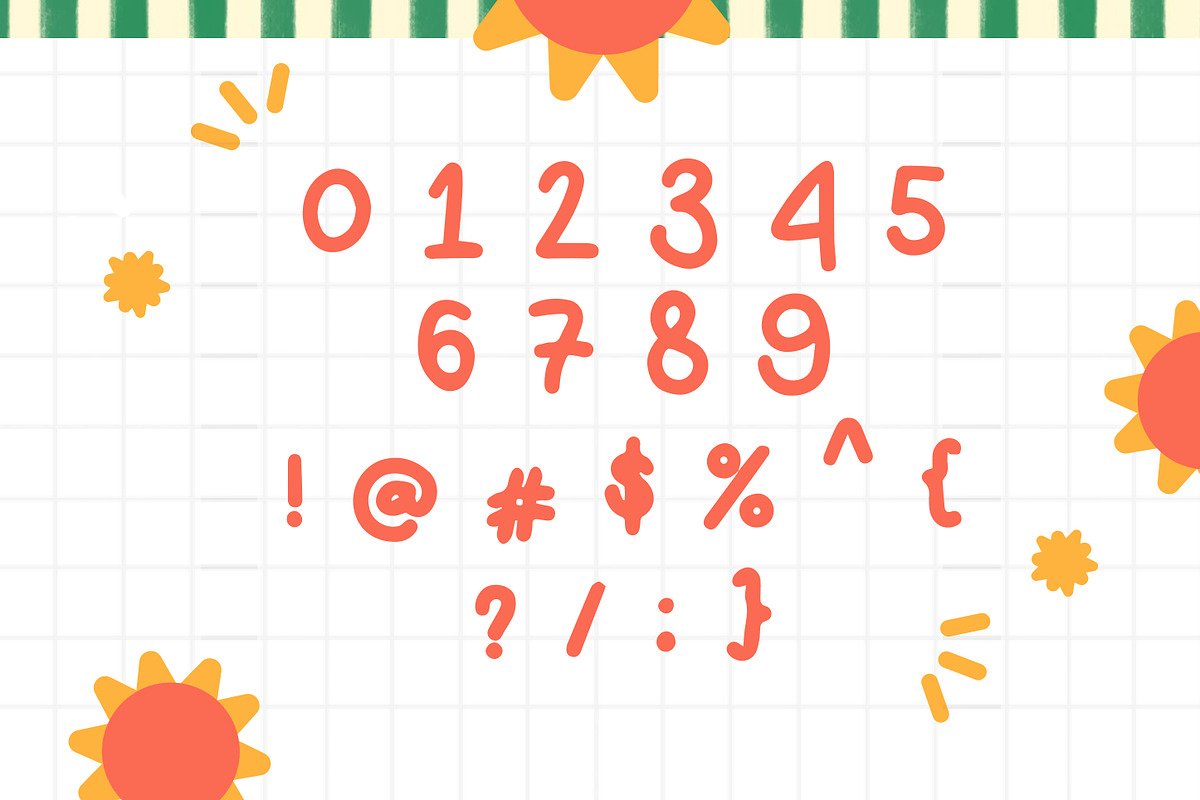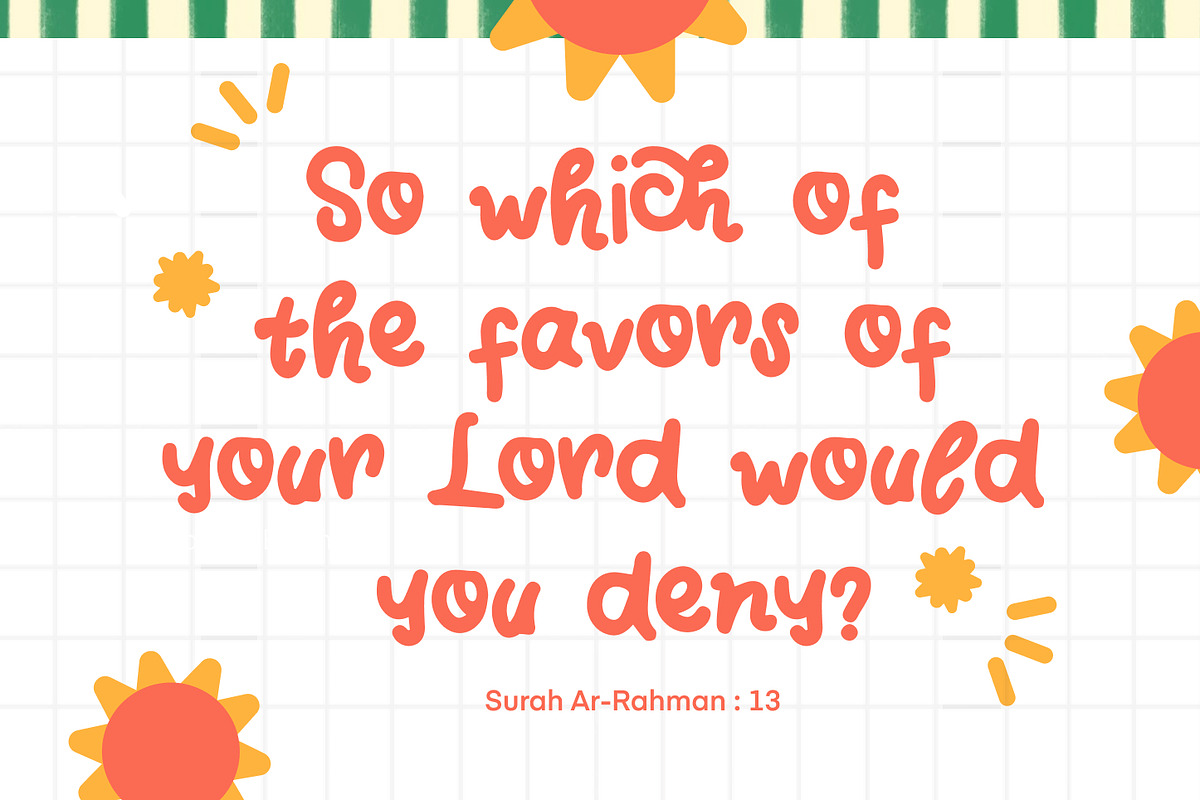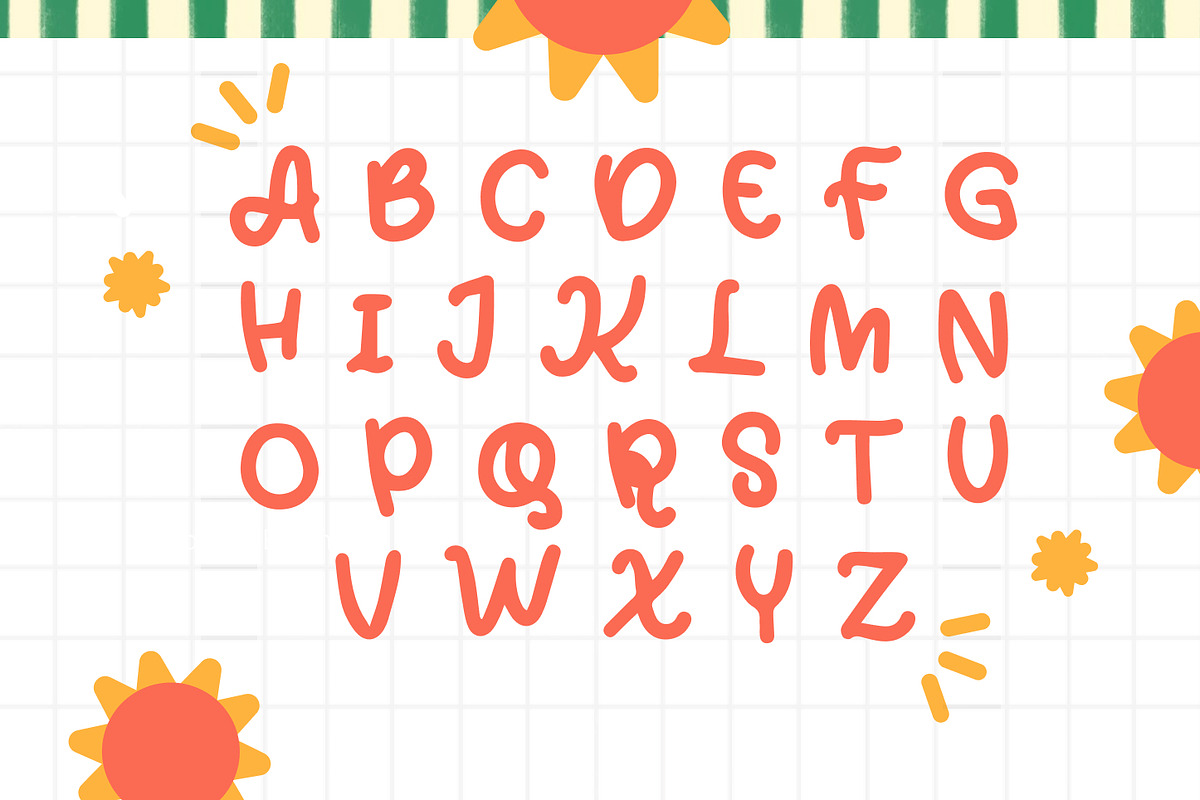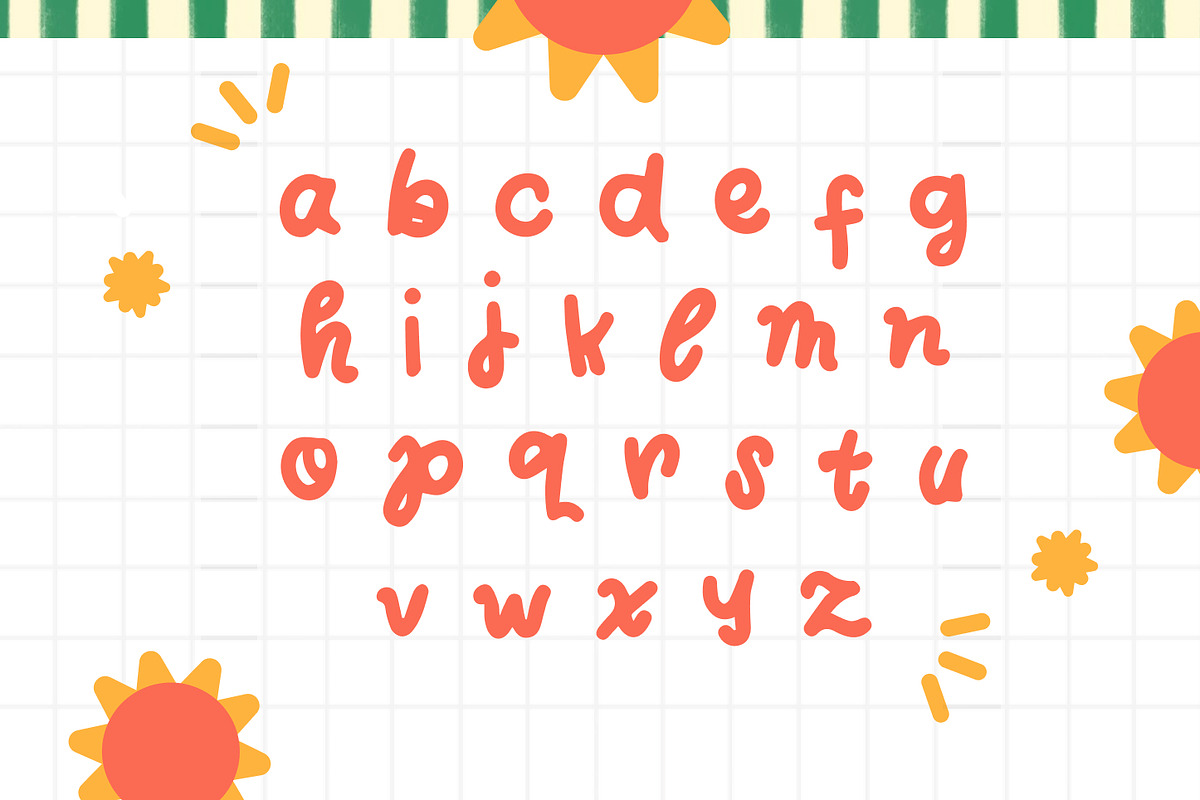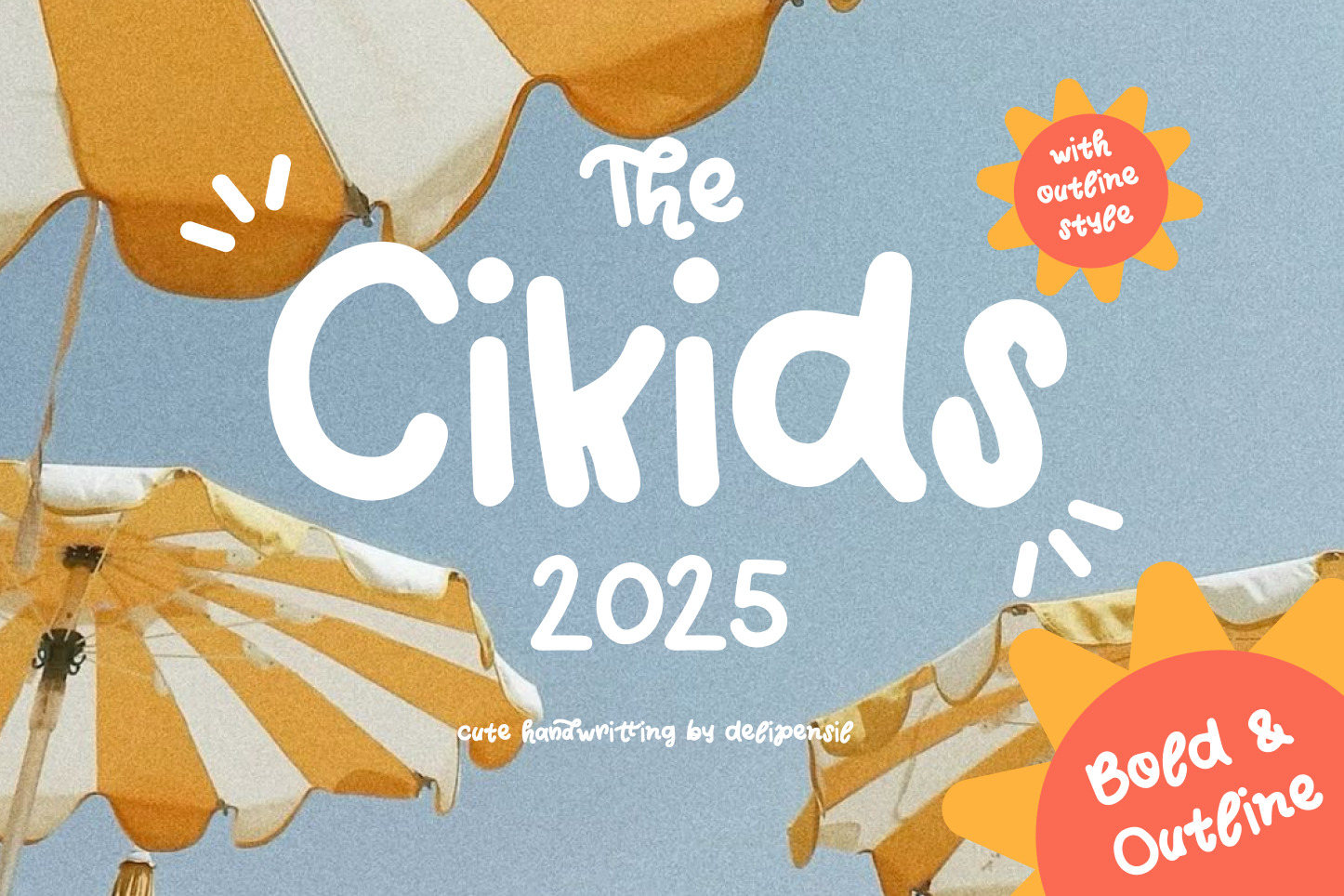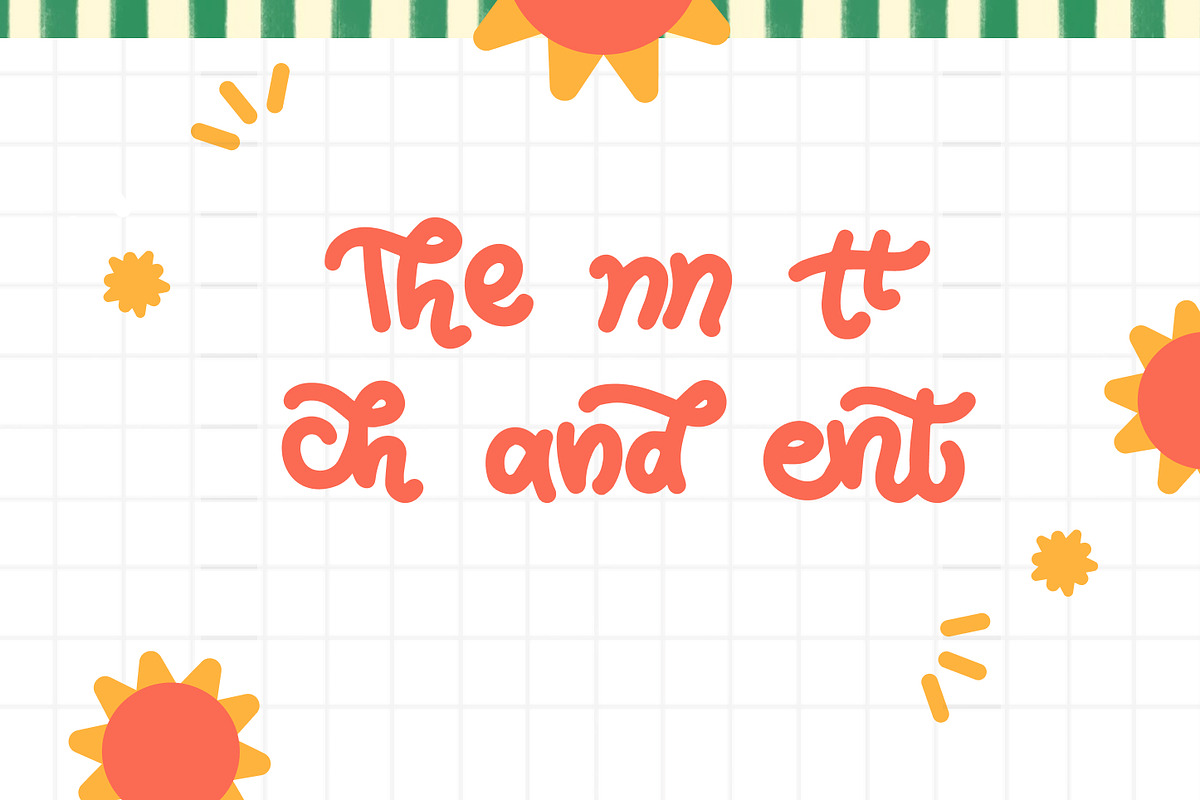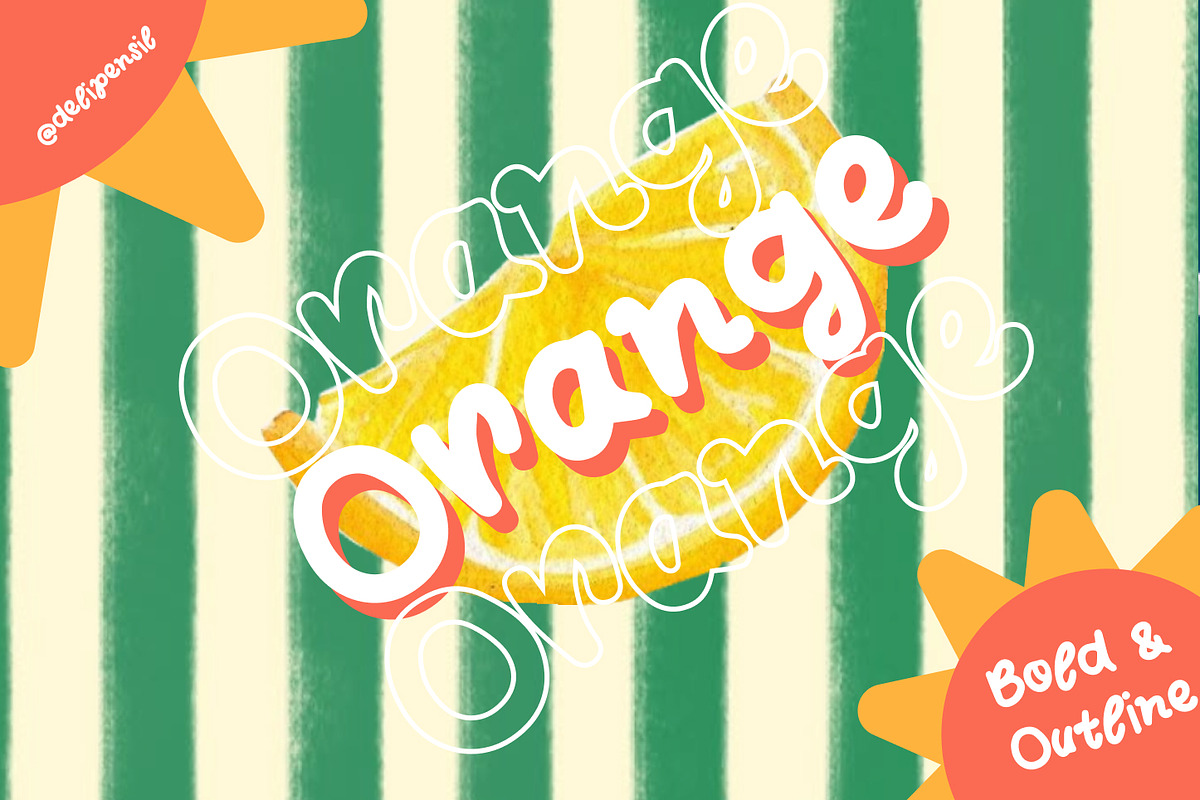
Cikids - Cute Handwritting Typeface
Bismillah, Intrduction Cikids – Cute Handwriting Style
Bring a cheerful and warm touch to your designs with Cikids, a cute handwriting font inspired by kids’ doodles. Its soft and playful strokes make it perfect for a variety of creative projects such as birthday invitations, greeting cards, children’s posters, product labels, and educational materials.
✨ Features:
- Cikids Uppercase & lowercase letters (A–Z, a–z)
- Cikids Numbers & full punctuation
- Cikids Ligature
- Cikids 2 Styles Include
With Cikids, every word looks more friendly, fun, and full of character! Thanks and have a wonderful day, delipensil